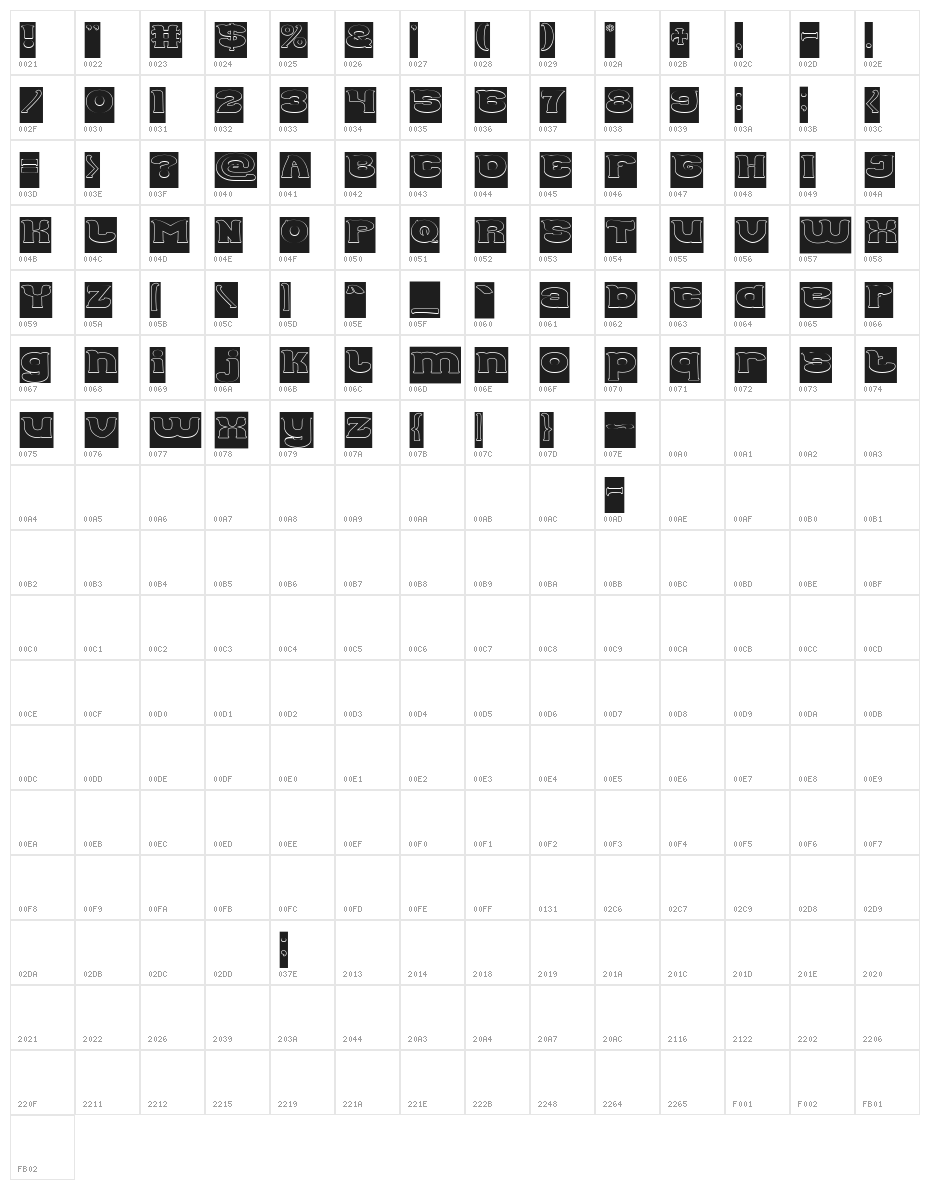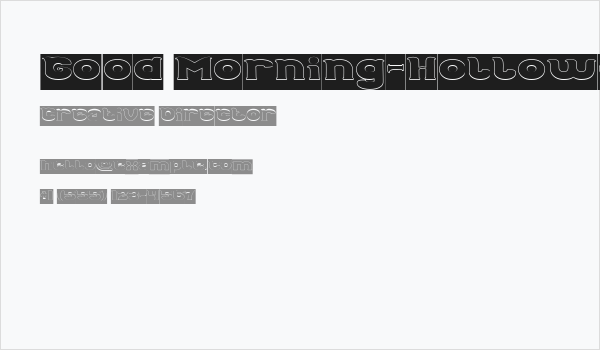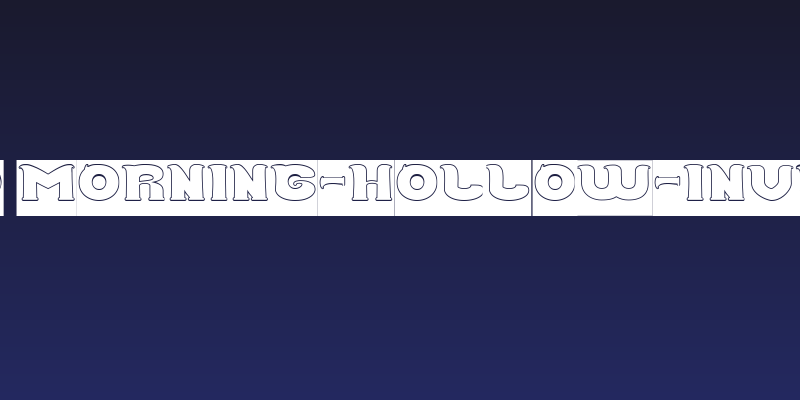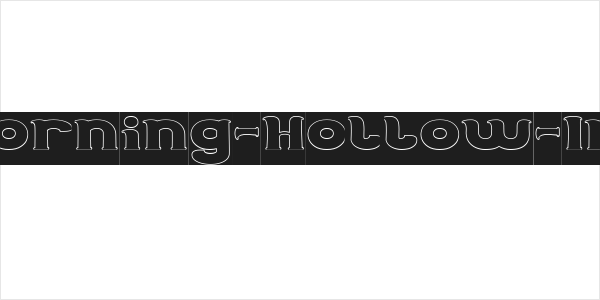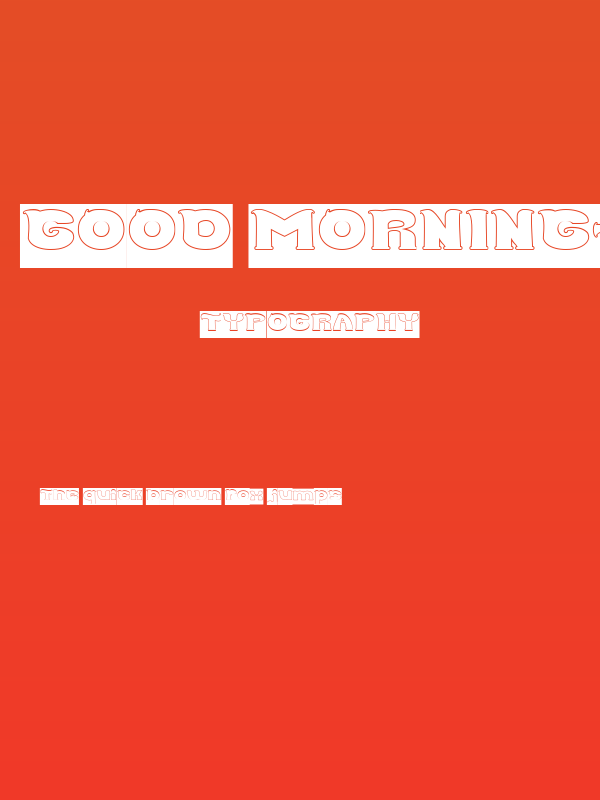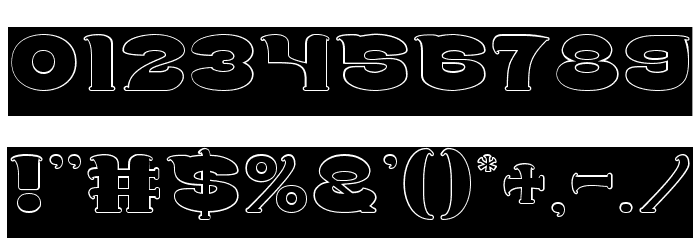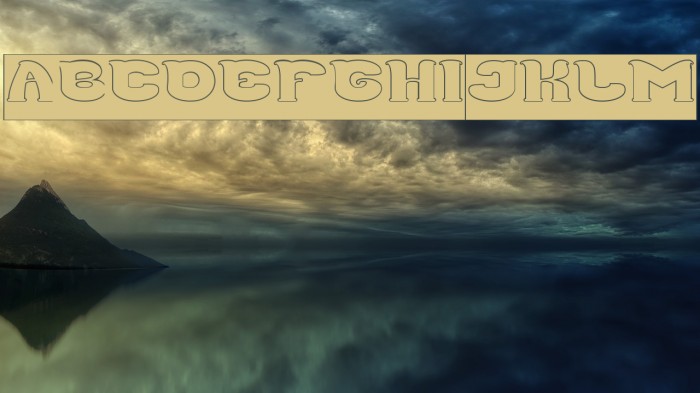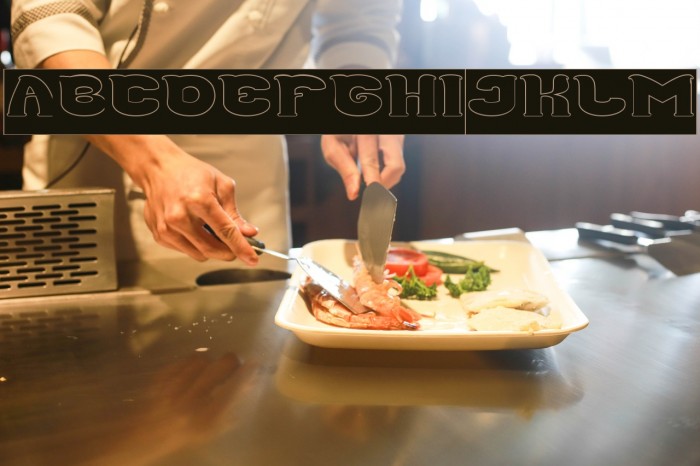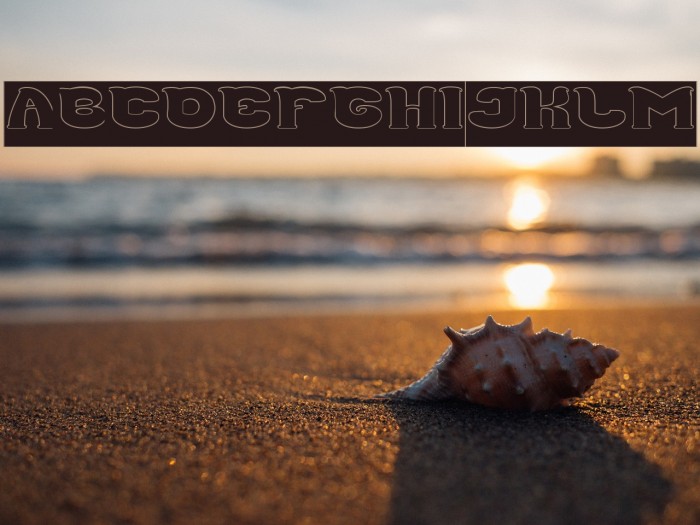
Good Morning-Hollow-Inverse Font
Good Morning-Hollow-Inverse Description
This font features a bold, hollow design with a playful and decorative style. The characters are outlined with a consistent thickness, creating a striking visual effect. The uppercase and lowercase letters maintain a uniform width, contributing to a cohesive appearance. The numbers and special characters follow the same design principles, ensuring a harmonious look across all glyphs. The font's unique style makes it ideal for eye-catching designs, where a bold statement is desired. Its hollow nature allows for creative use of background colors or textures to shine through the characters.
| Proposed Projects | Ideal for posters, logos, headlines, and any design requiring a bold, eye-catching font. |